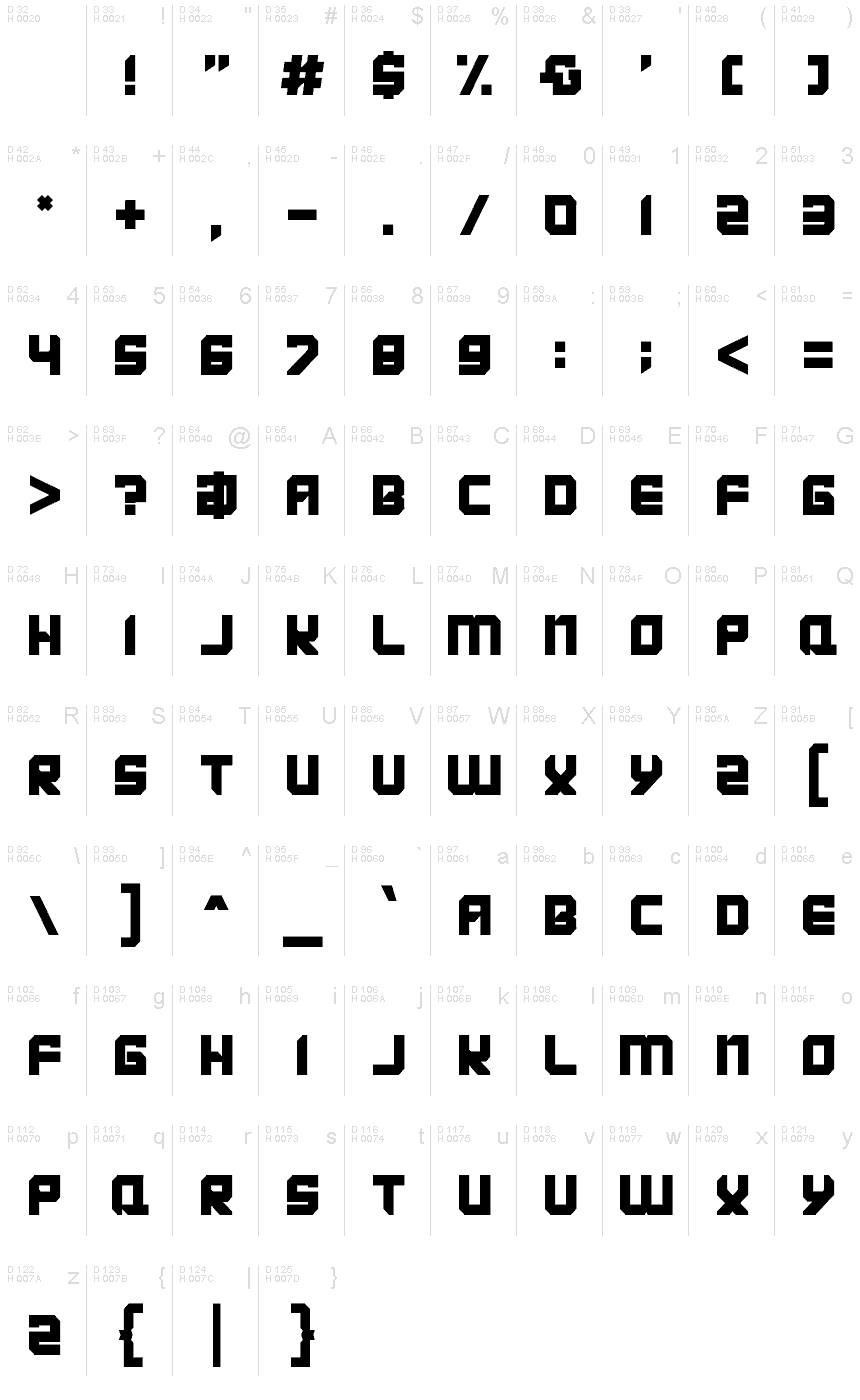
KARIXBY
Karixby font by Enxyclo Studio is a rigid geometric display typeface that’s here to create more sophisticated projects. The form of all characters is angular and made into a new playful style with many sharp corners. With its futuristic appearance and sporty aesthetic, any text typed in Karixby will develop an out-of-the-world look.
This bold font is suitable for posters, banners, memes, Instagram posts, book covers, product packaging, or official merchandise. Logos and headlines are another popular idea next to gaming titles, software projects, or even advertising for sports events.